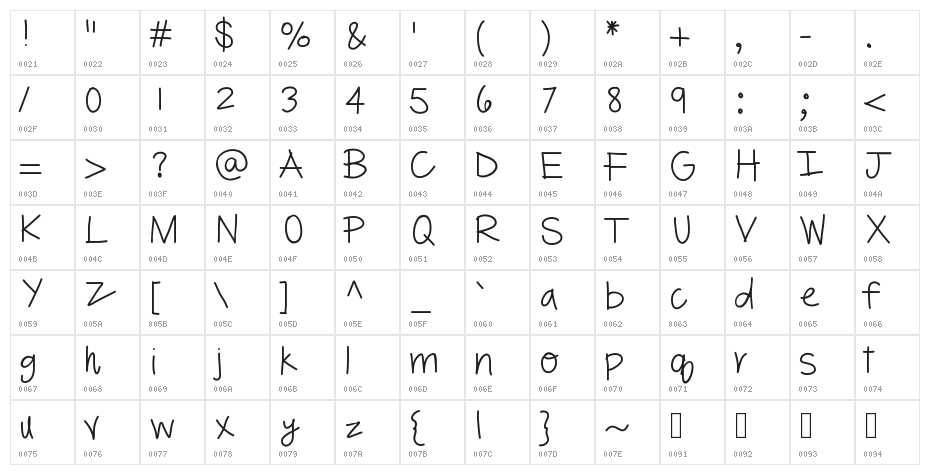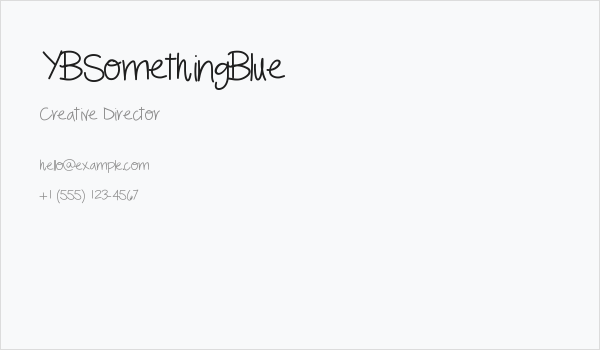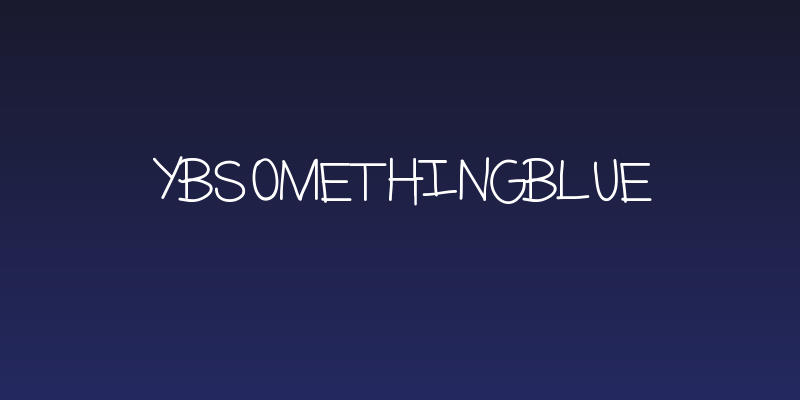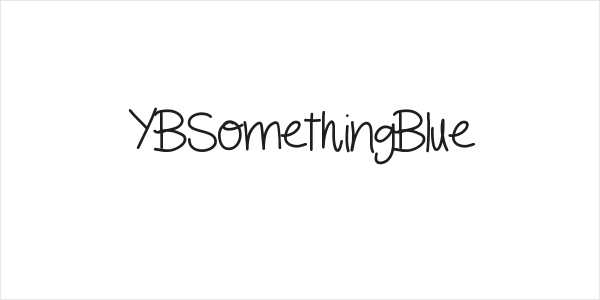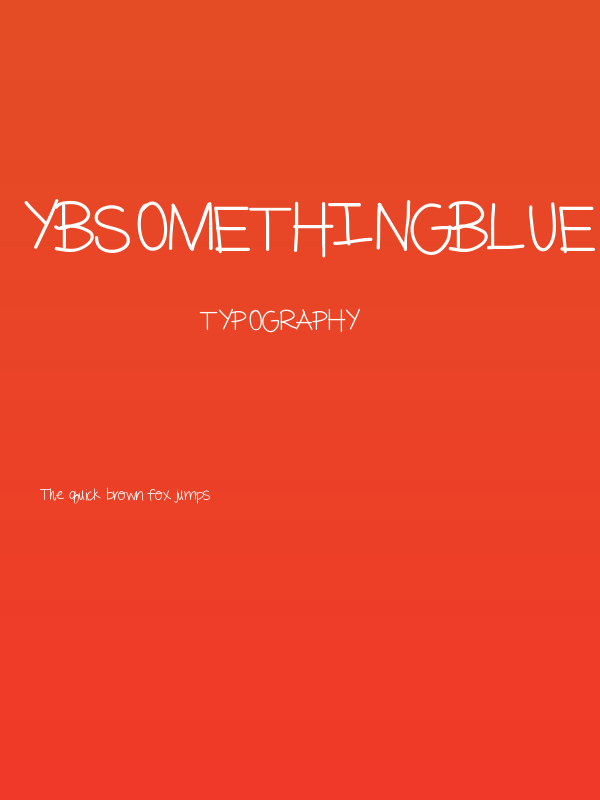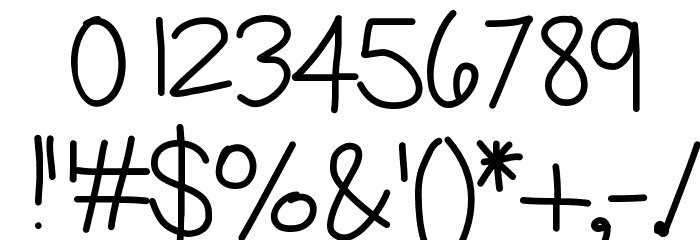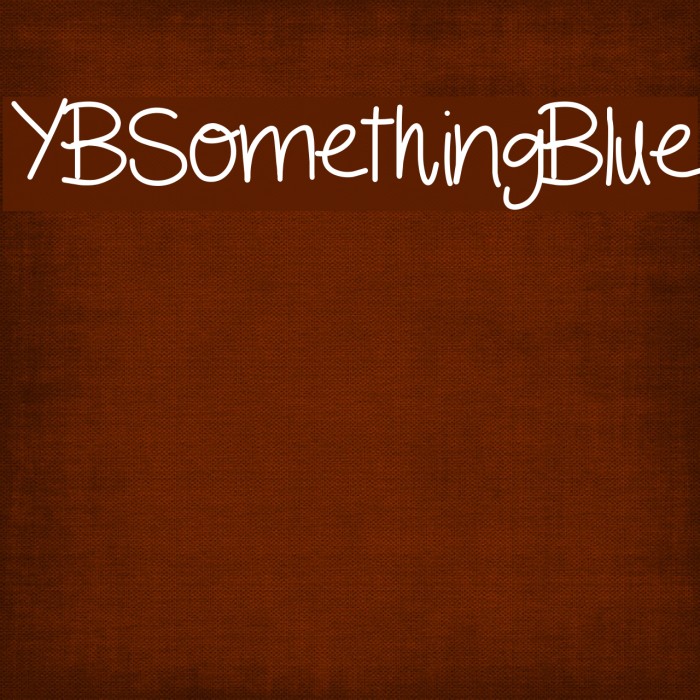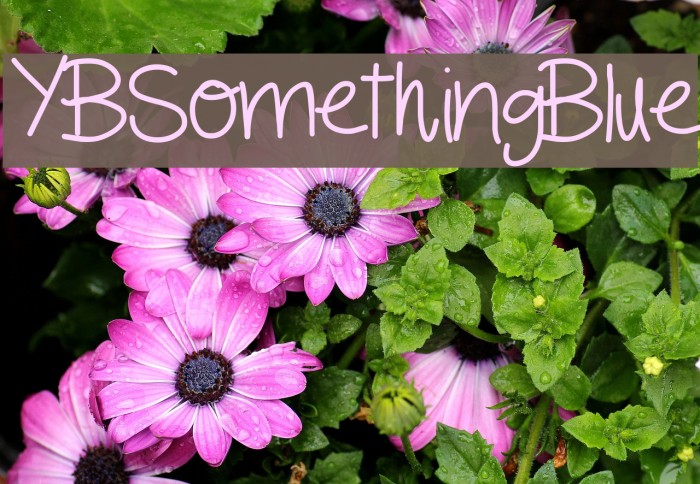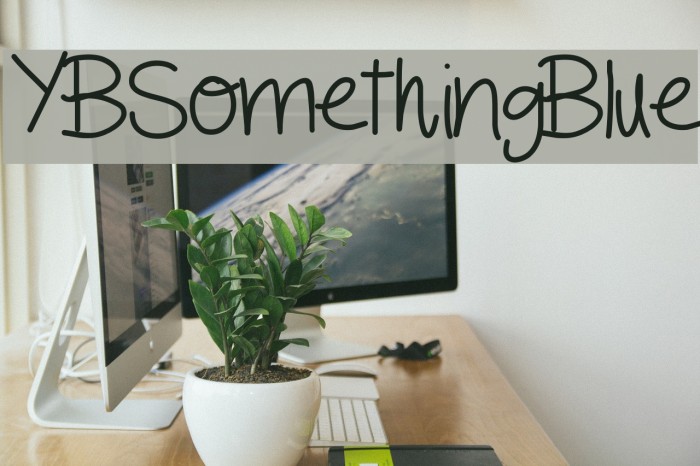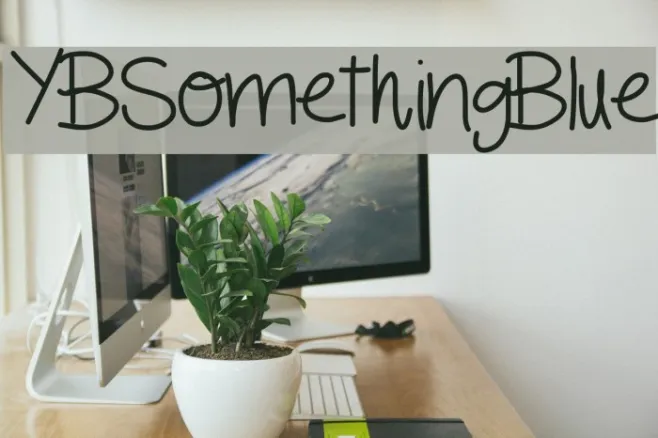
YBSomethingBlue Font
YBSomethingBlue Description
This font features a playful and casual handwritten style, characterized by its irregular strokes and informal appearance. The letters are slightly slanted, giving them a dynamic and lively feel. The uppercase letters are tall and narrow, while the lowercase letters are more rounded and open. The numbers and special characters maintain the same whimsical style, making the font consistent throughout. The overall look is approachable and friendly, suitable for projects that require a personal touch.
| Use Case | Headlines, Informal text, Personal projects |
| Proposed Projects | Ideal for greeting cards, children's books, personal blogs, and informal branding. |